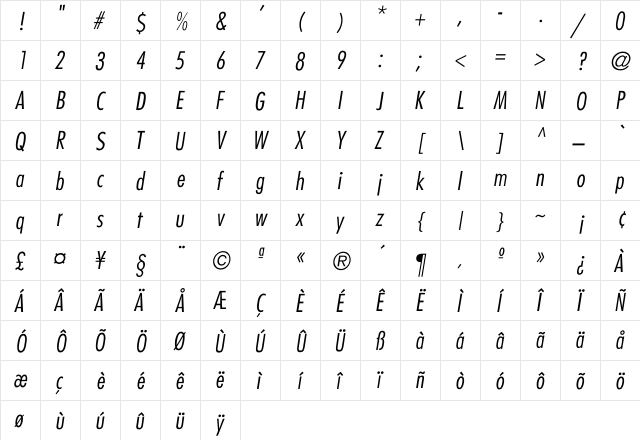
Fairmont-Cond Lite-Ital Regular
Design Context for Fairmont-Cond Lite-Ital Typeface
Fairmont-Cond Lite-Ital takes a measured approach to typography — its balanced proportions and neutral character make it a reliable workhorse for both digital and print work. The condensed width makes it efficient for tight spaces without sacrificing legibility.